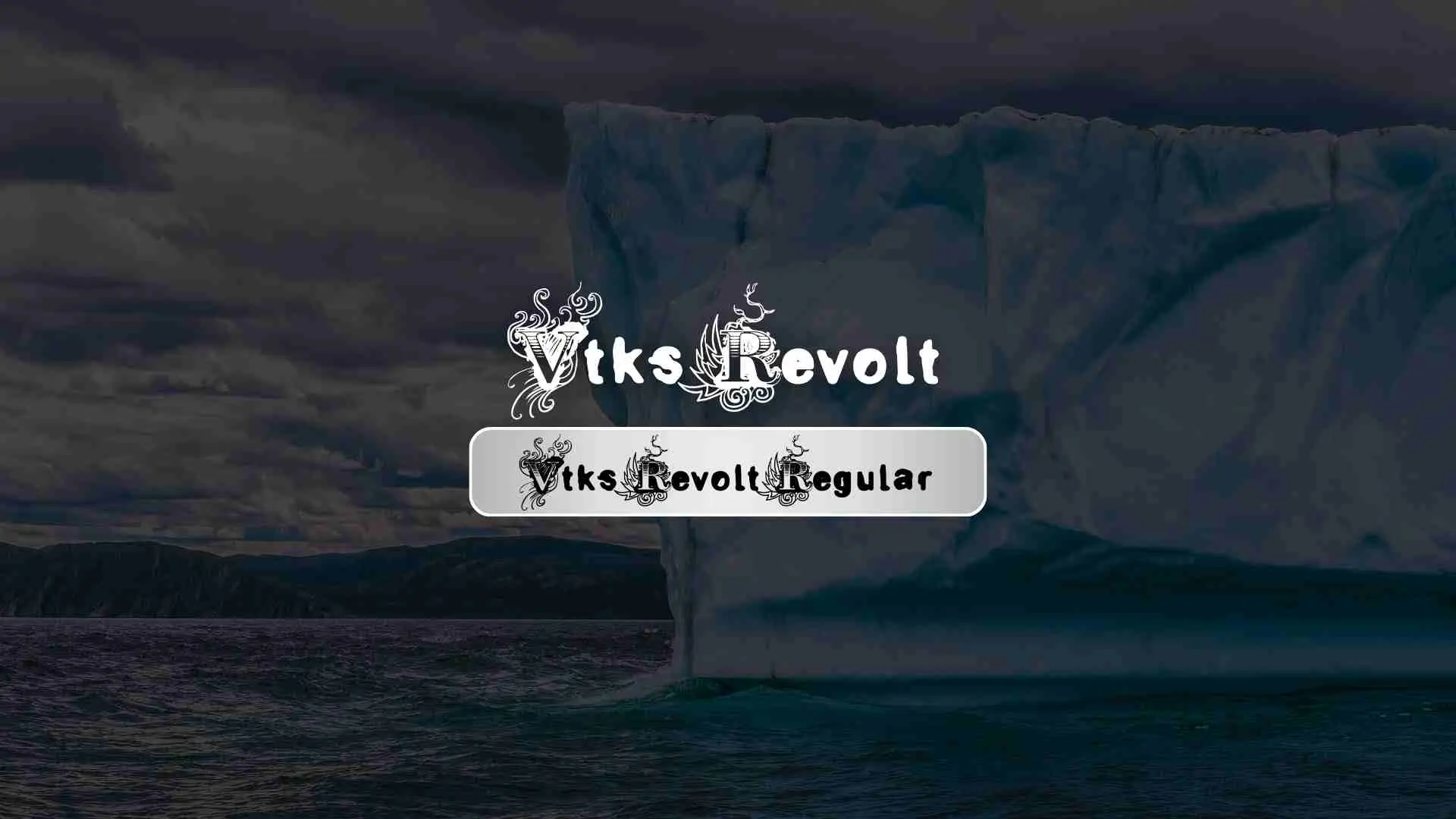
The font Vtks Revolt Regular, designed by Douglas Vitkauskas, falls under the Display category & Vtks Revolt font family. Its smooth, flowing letterforms make it a versatile choice for projects that require both elegance and readability. Vtks Revolt is particularly well-suited for Headlines, Titles, Thematic Design, Alternative/Rock Music Graphics and Streetwear & Apparel. With its balance of simplicity and decorative appeal, this font brings a polished touch to both personal and professional designs.